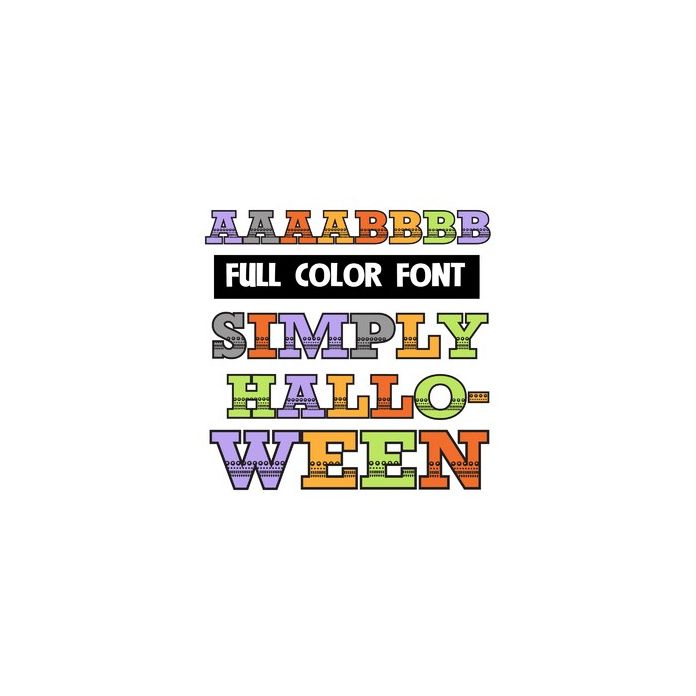
This full-color font features slab serif lettering with a little decor throughout. There is a second version of each upper and lowercase letter in a different color available through Silhouette's glyph map.